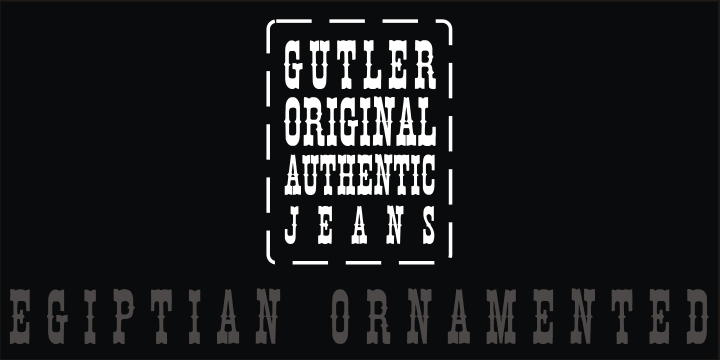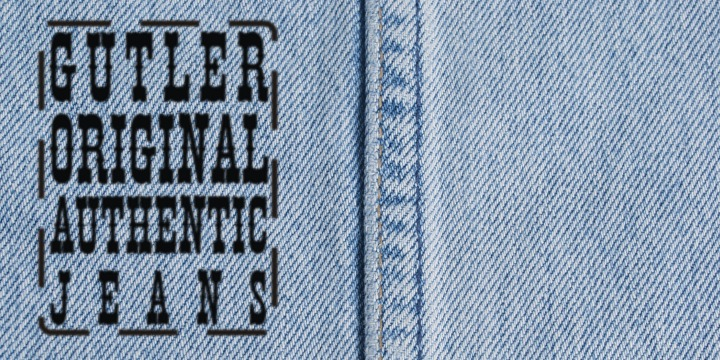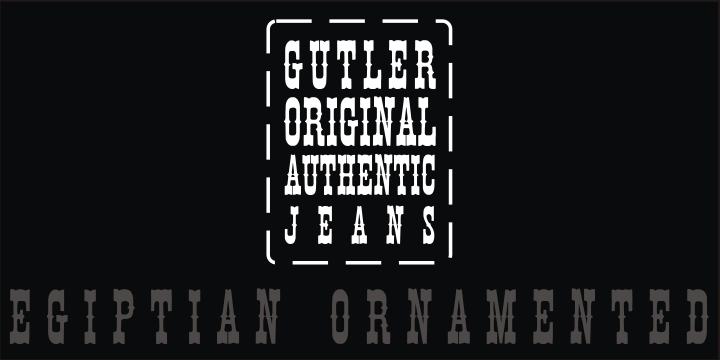
Egiptian Ornamented
Egiptian Ornamented is a western and wood type font family. This typeface has nine styles and was published by Intellecta Design.
a family inspired in classci wood type egiptian fonts